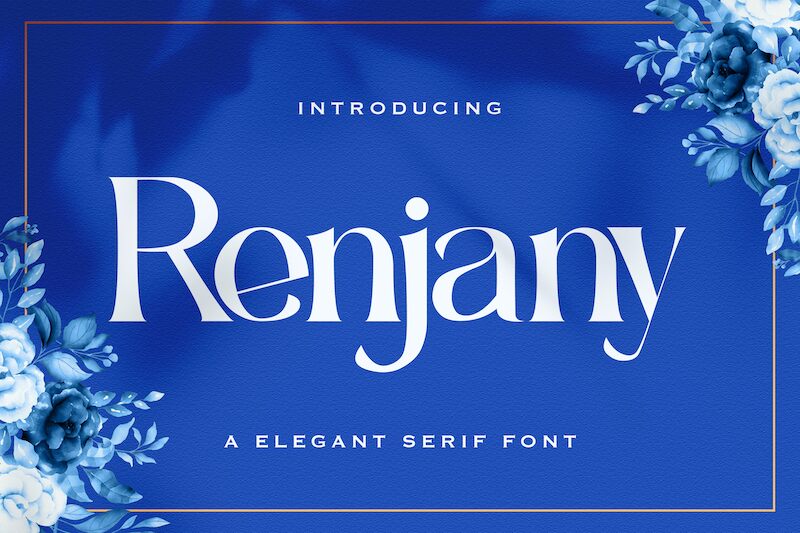
Renjany is a beautiful serif font designed by Virgiawan Listanto. It's perfect for creating elegant branding, wedding invitations, logos or anything that requires an extra touch of sophistication. Its timeless style also makes it suitable for any project needing a classic, yet modern look.